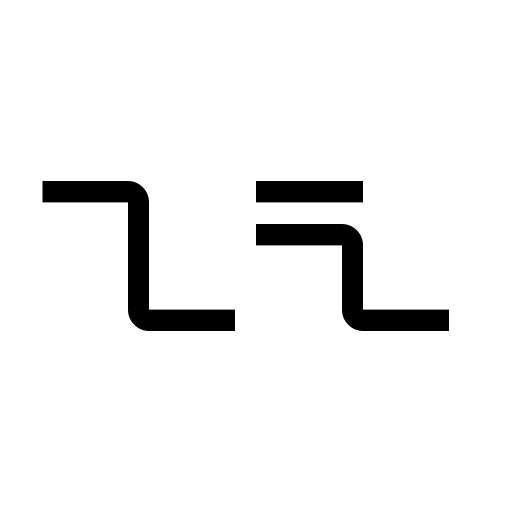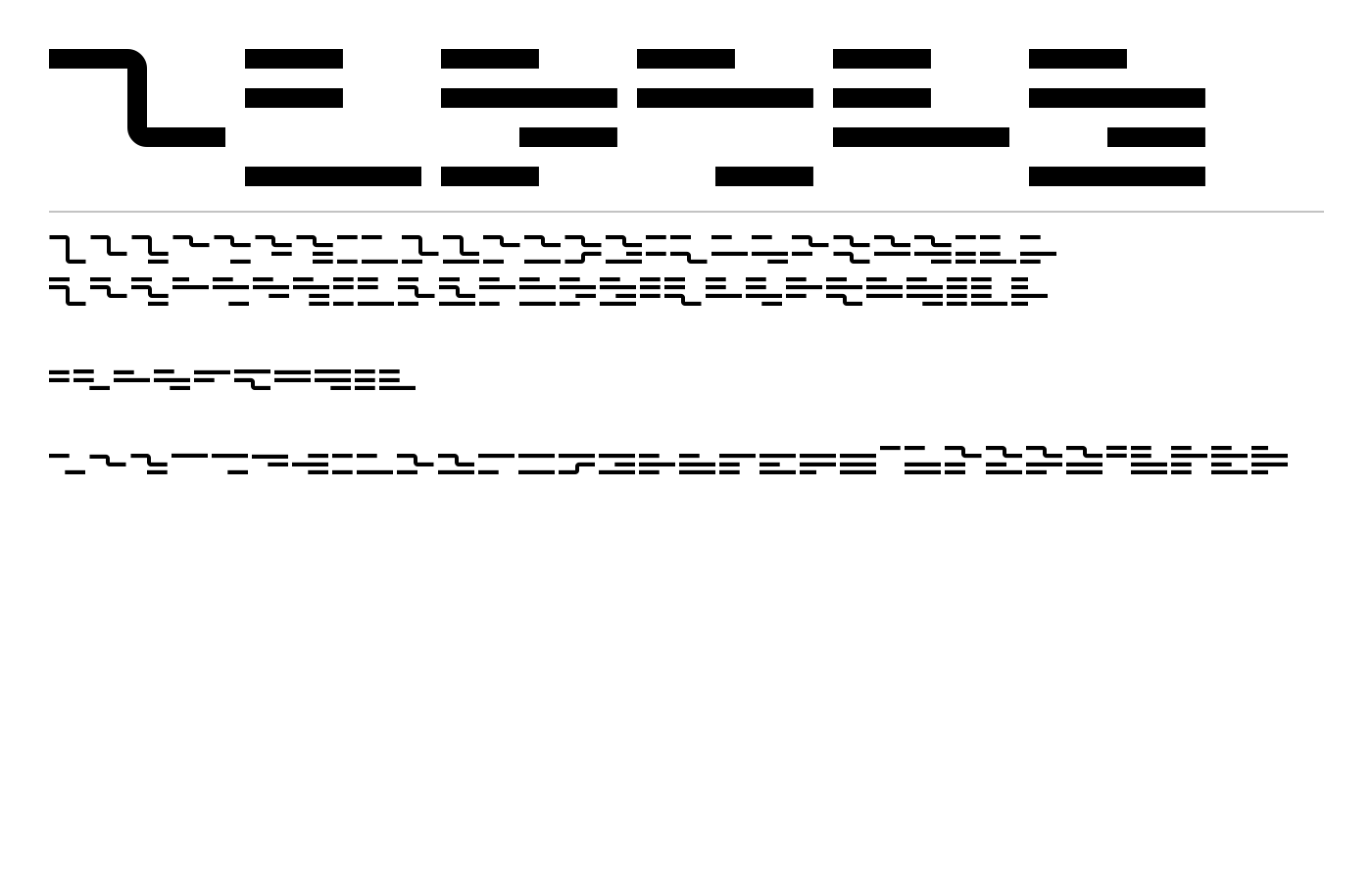
Binero is a highly stylized, futuristic sans serif font characterized by its modular, rectangular shapes and consistent stroke weight. Its geometric, blocky letterforms create a distinctive digital or sci-fi feel, making it ideal for tech branding, modern headlines, and creative projects that seek a sleek, unconventional look. This font works best where bold visual impact and unique personality are needed to stand out.
Binero Font
About Binero Font